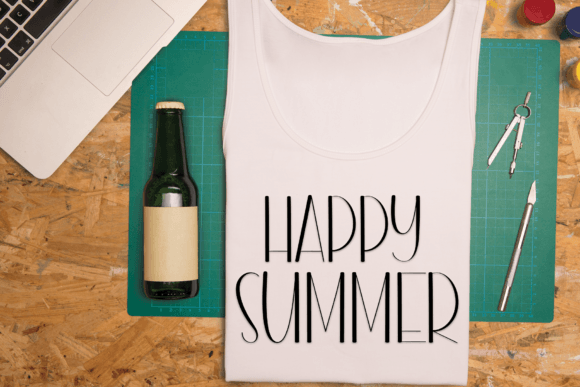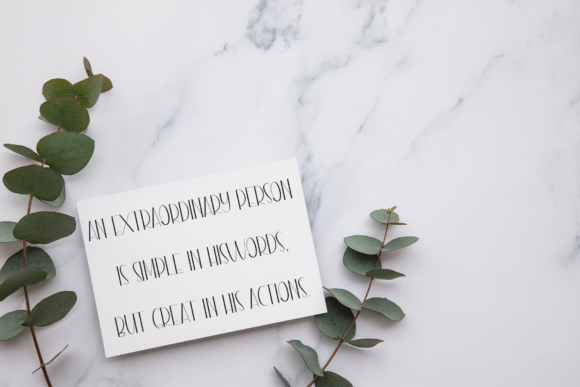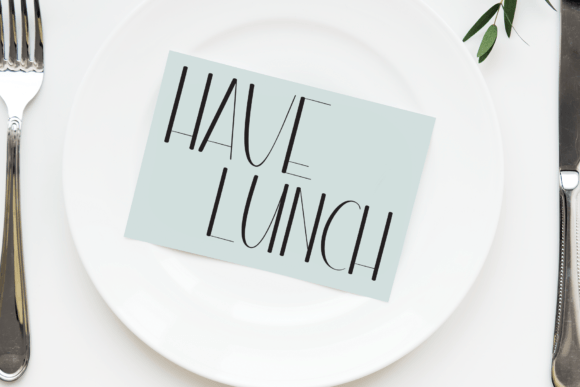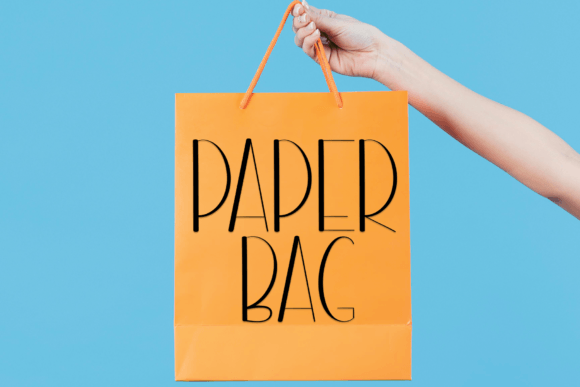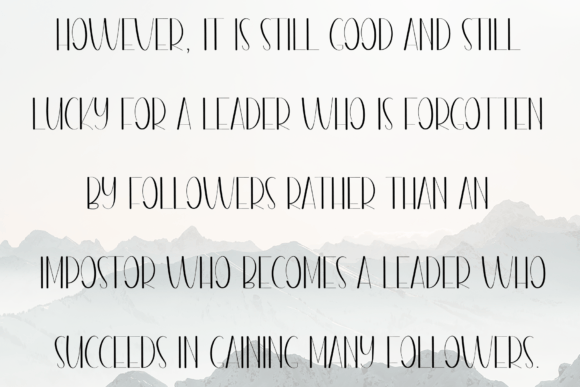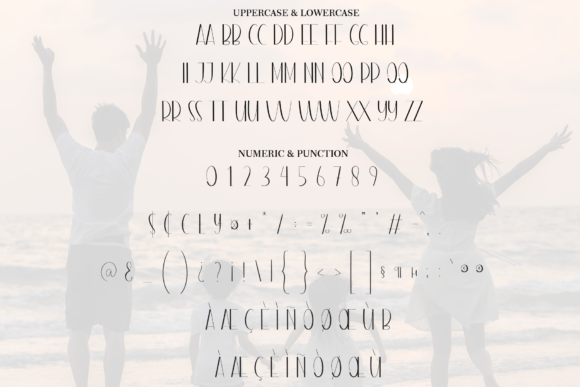
Introducing Happy Font: The Sweet and Friendly Handwritten Display Font
Are you looking for a font that can add a touch of whimsy and fun to your designs? Look no further than Happy Font, a sweet and friendly handwritten display font that’s perfect for a variety of creative projects. In this article, we’ll take a closer look at Happy Font, its features, and how you can use it to elevate your designs.
What is Happy Font?
Happy Font is a handwritten display font that’s designed to bring a smile to your face. It’s a cute and fun font that’s ideal for writing wedding invitations, cards, or any other design that might need a fun touch. With its playful and carefree vibe, Happy Font is sure to add a personal touch to your designs and make them stand out.
Key Features of Happy Font
So, what makes Happy Font so special? Here are some of its key features:
- Handwritten style: Happy Font has a beautiful, handwritten style that’s perfect for adding a personal touch to your designs.
- Cute and fun: This font is designed to be fun and playful, making it perfect for designs that need a lighthearted touch.
- Display font: Happy Font is a display font, which means it’s designed to be used at larger sizes, making it perfect for headings and titles.
- Easy to read: Despite its playful style, Happy Font is easy to read, making it perfect for use in a variety of designs.
Uses for Happy Font
So, what can you use Happy Font for? The possibilities are endless, but here are some ideas to get you started:
- Wedding invitations: Happy Font is perfect for wedding invitations, adding a touch of whimsy and romance to your designs.
- Cards: Whether you’re designing birthday cards, thank you cards, or holiday cards, Happy Font is a great choice.
- Social media graphics: Add a playful touch to your social media graphics with Happy Font.
- Signs and posters: Happy Font is perfect for signs and posters that need a fun and playful touch.
Tips for Using Happy Font
Here are some tips for using Happy Font in your designs:
- Use it sparingly: Happy Font is a display font, so it’s best used sparingly. Use it for headings and titles, and a simpler font for body text.
- Experiment with colors: Happy Font looks great in a variety of colors, so don’t be afraid to experiment and find the perfect color for your design.
- Pair it with other fonts: Happy Font pairs well with a variety of other fonts, so try pairing it with a simpler font for a contrasting look.
In conclusion, Happy Font is a sweet and friendly handwritten display font that’s perfect for adding a touch of whimsy and fun to your designs. With its playful and carefree vibe, Happy Font is sure to make your designs stand out. Whether you’re designing wedding invitations, cards, or social media graphics, Happy Font is a great choice. So why not give it a try and see how it can elevate your designs?